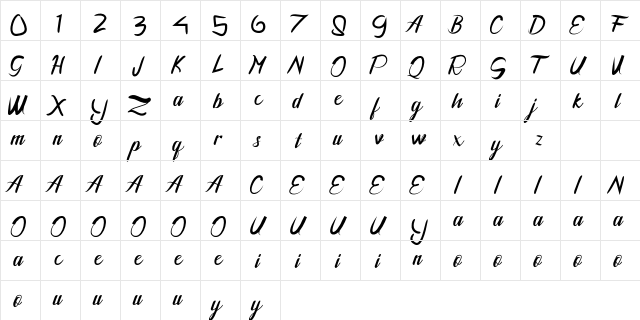
Meathagraph Regular
| Designer | Fiqiart |
Design Context for Meathagraph Typeface
Meathagraph takes a measured approach to typography — its balanced proportions and neutral character make it a reliable workhorse for both digital and print work.
Pro Tip: Use Meathagraph in both headline and body roles to test its range before committing to a single application.